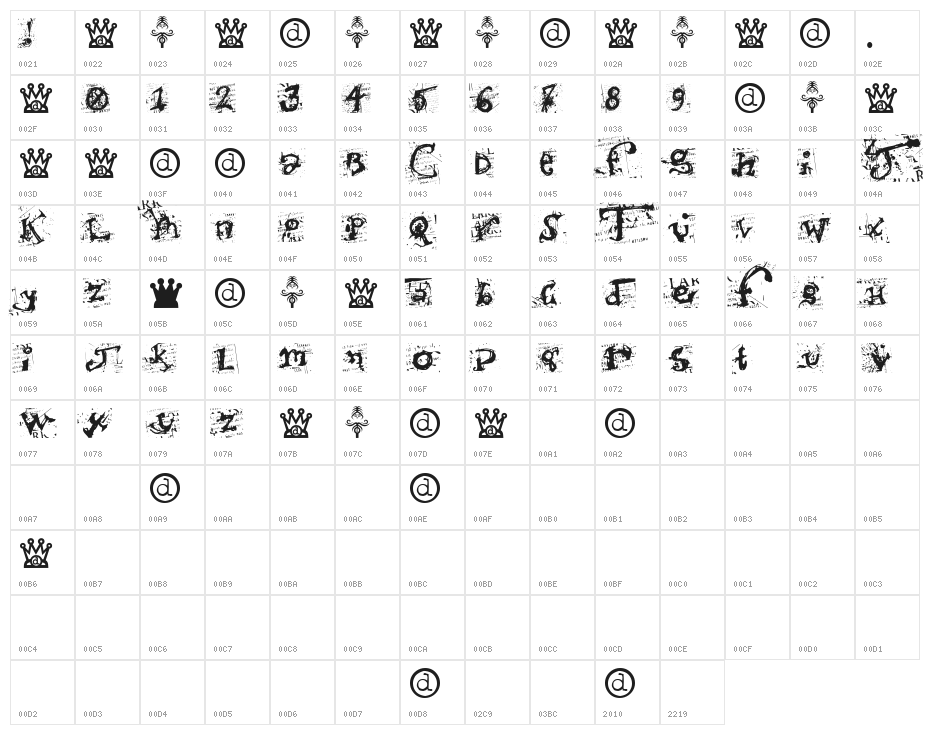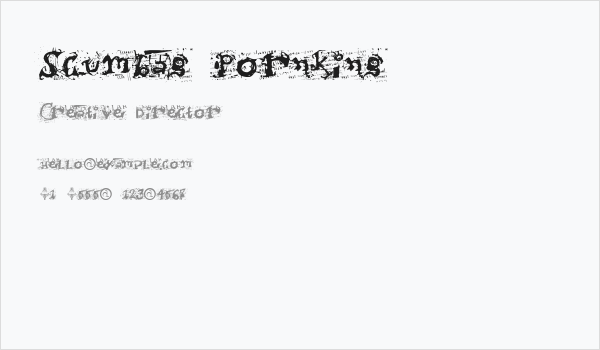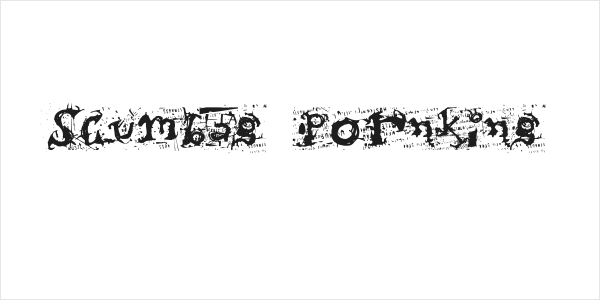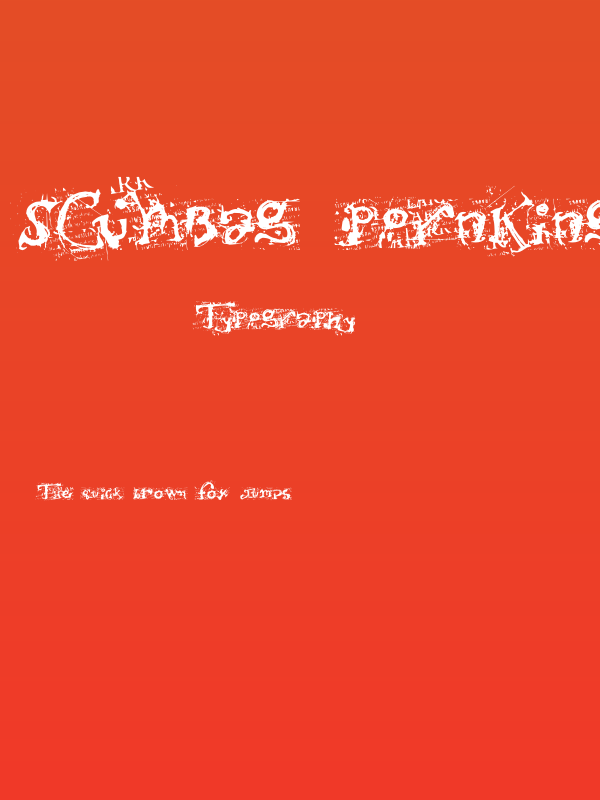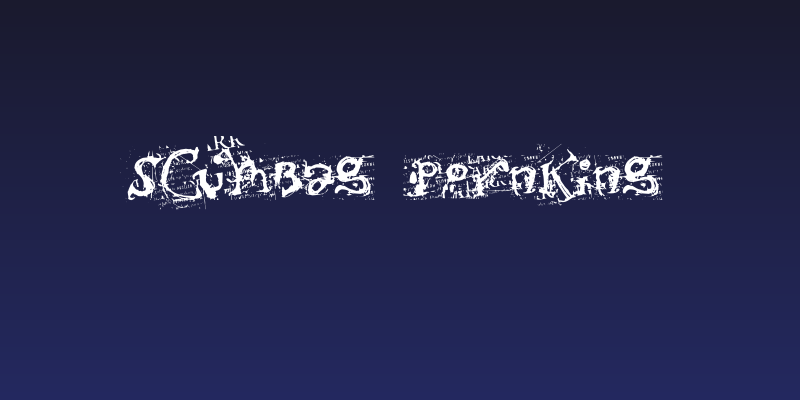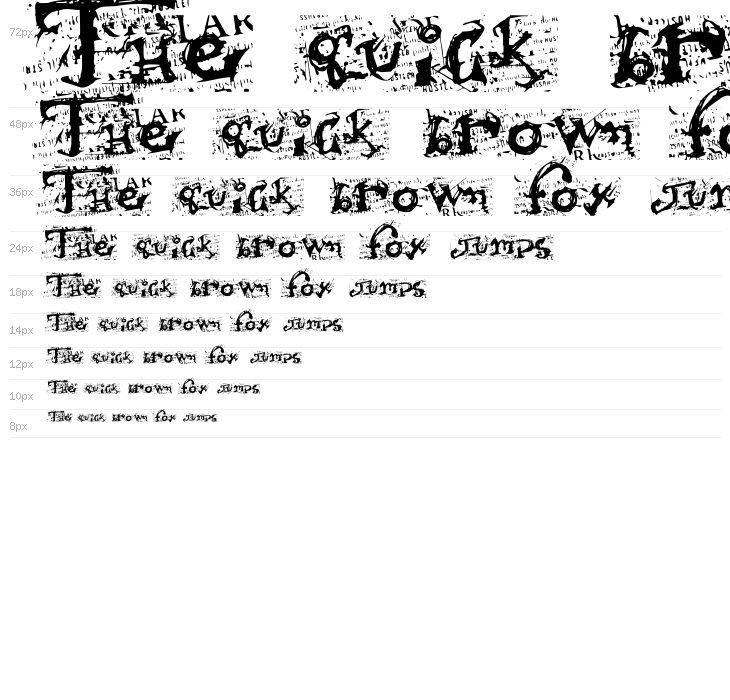
Scumbag Pornking Font
Scumbag Pornking Description
This font exhibits a highly distressed and grungy aesthetic, characterized by its chaotic and textured appearance. The letters are irregular and appear as if they have been roughly sketched or stamped, with varying levels of ink saturation and smudging. The uppercase and lowercase letters maintain a consistent style, with exaggerated curves and sharp angles that contribute to its edgy and rebellious look. Numbers and special characters follow the same distressed theme, adding to the overall chaotic feel. This font is ideal for projects that require a raw, urban, or punk vibe, making it suitable for album covers, posters, or any design that aims to capture attention with its bold and unconventional style.
| Overall Style | Grunge, Urban, Edgy |
| Proposed Projects | Album covers, posters, streetwear branding, rebellious-themed designs. |